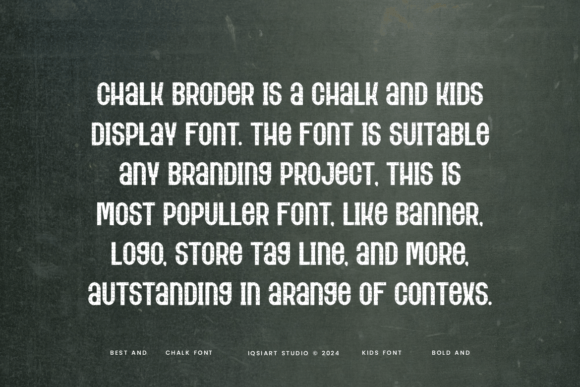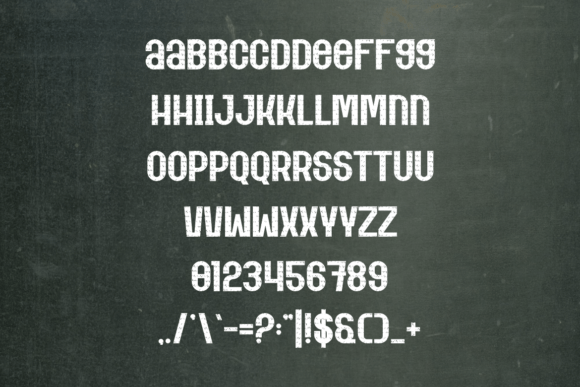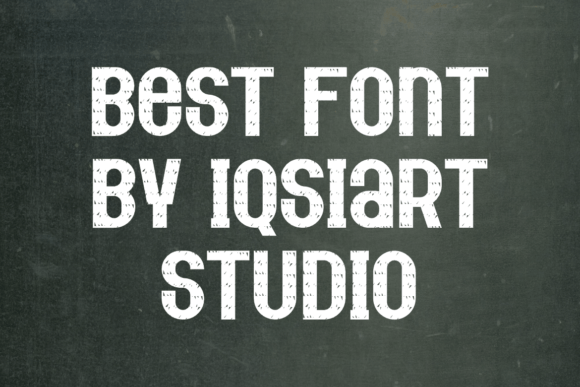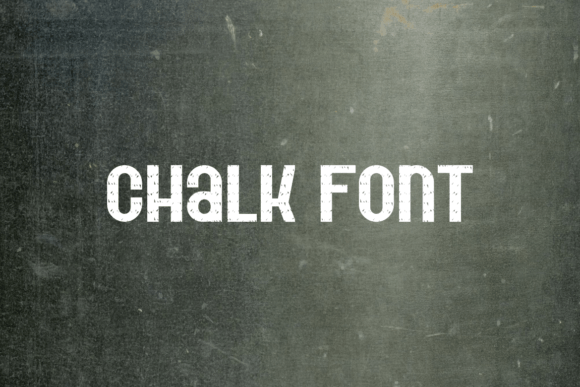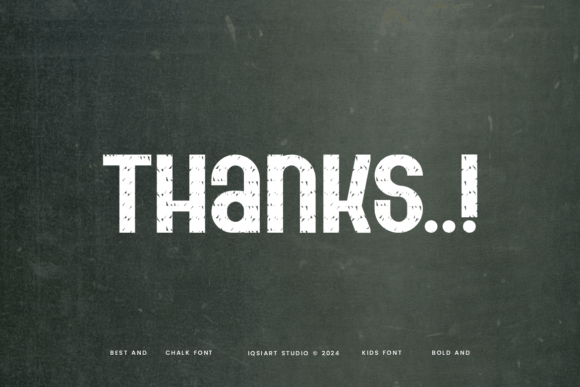
Have you ever been stuck on a design project, searching for that perfect font to capture the essence of your creative vision? You’re browsing through font collections, trying to find something that stands out – something that screams ‘handmade’ and ‘fun’. And then, it hits you: a font that looks like it was drawn with chalk, full of character and charm.
Meet Chalk Broder Font, a display font designed to bring a playful, carefree feel to your designs. Whether you’re creating signs, posters, or any other visual content, this font is sure to grab attention. Its bold, thick letters are perfect for making a statement and adding a touch of whimsy to your work.
Chalk Broder Font Key Features
- Font Type: Display Font
- Font Size: 500 glyphs
- Resolution: Supports up to 1024×1024 DPI
- Unique Characteristics: Chalk Broder is a hand-drawn display font with a distressed, vintage feel, ideal for titles, headings, and other display text.
- Language Support: Multilingual support for over 100 languages
Chalk Broder Font Review
Overall, I’d say the Chalk Broder Font is a sweet addition to any designer’s toolkit. Here are the things that work well:
- ✨ The font’s quirky, handwritten feel is perfect for adding a personal touch to your designs.
- ✨ The font is highly legible, even at smaller sizes, making it a great choice for body text or headlines.
- ✨ The font’s unique character set includes a range of symbols and icons that can add an extra layer of interest to your designs.
- ⚠️ The font may not be suitable for formal or professional applications, as its playful feel can come across as unprofessional.
- ⚠️ Some of the font’s letters may be difficult to read at very small sizes, so be sure to test it thoroughly before using it in a design.
- ⚠️ The font’s unique character set can make it difficult to pair with other fonts, so be prepared to get creative with your font combinations.
Overall, I’d say the Chalk Broder Font is a great choice for designers looking to add some personality to their designs. While it may not be suitable for every project, it’s definitely worth considering for the right application.
Chalk Broder Font Practical Application Guide
For a more authentic look, pair the Chalk Broder font with a distressed or watercolor effect. Use the font in combination with other vintage-inspired elements, such as old photographs or illustrations, to create a unique and eye-catching design.
The Chalk Broder font is perfect for:
- Crafting invitations and party decor
- Designing wedding stationery and wedding signs
- Creating a vintage-inspired logo or branding
- Adding a personal touch to greeting cards and gift tags